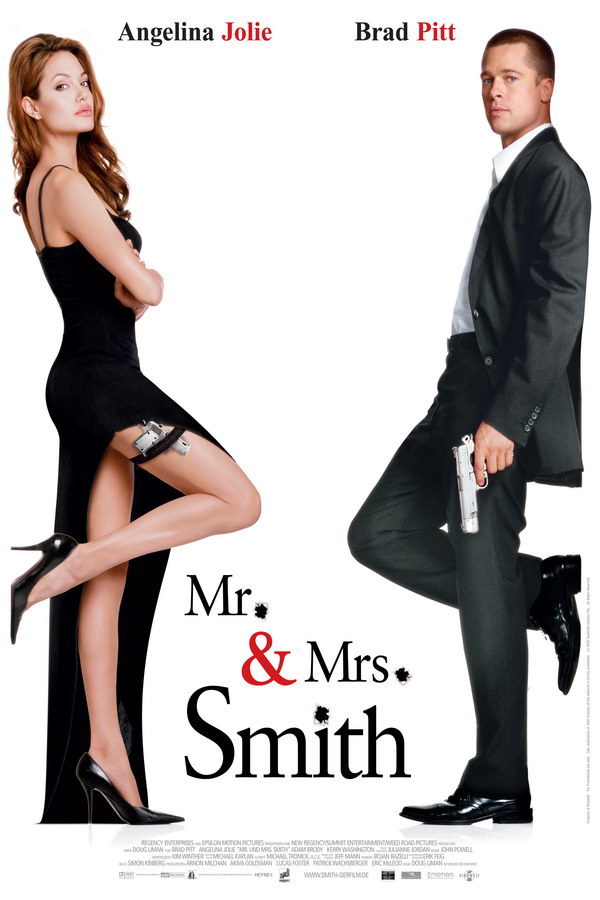
Mr. & Mrs. Smith Font
ActionMr. & Mrs. Smith is a 2005 action-comedy film about a bored married couple who discover that they are both assassins hired to kill each other. The movie stars Brad Pitt and Angelina Jolie and was directed by Doug Liman.
The movie poster's title font is similar to Classical Garamond Regular, but the ampersand symbol comes from Chasseur BQ Regular. Both are commercial fonts and can be purchased here and here respectively.